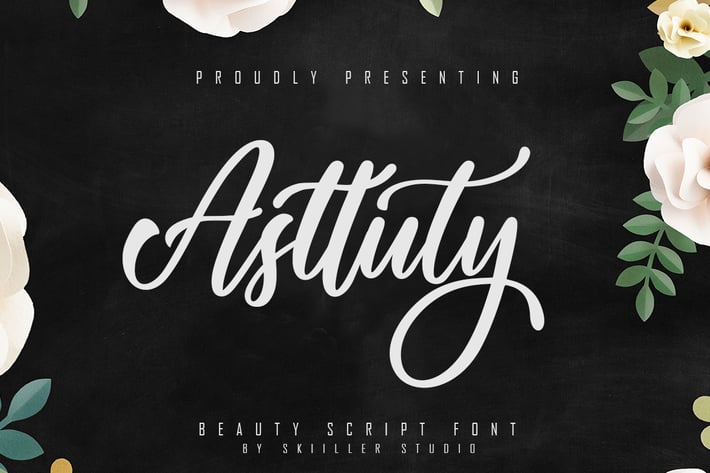
Asttuty Beauty Script Font
Asttuty Beauty Script Font This is our newest product called Asttuty Beauty Script Font. This is a Beautiful font designed according to general needs Asttuty is a very good font for logos, blogs / web headlines, clothing, invitations, posters, cafe / restaurant signs, and many others.
+ Ligature
+ Stylistic Alternate for lowercase
+ Stylistic set for lowercase
+ Basic Latin Language Support (AÀÁÂÃÄÅCÇDÐEÈÉÊËIÌÍÎÏÑOØÒÓÔÕÖUÙÜÚÛWYÝŸÆß )